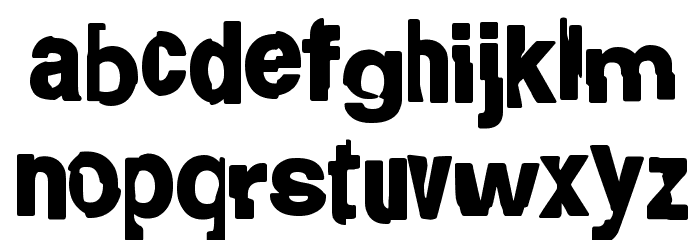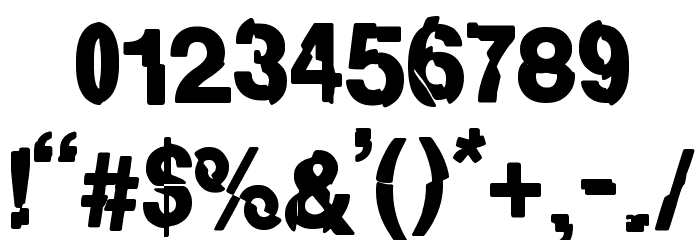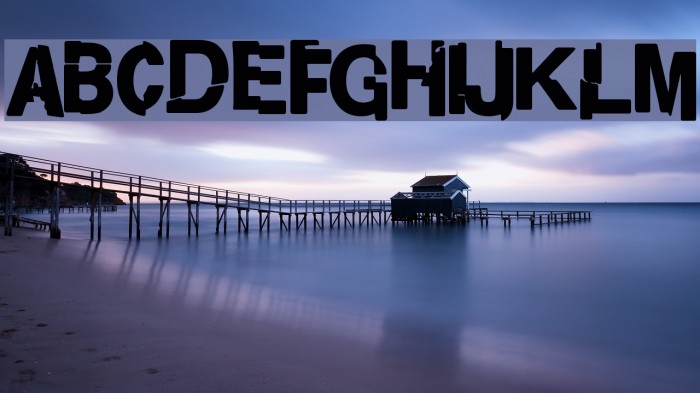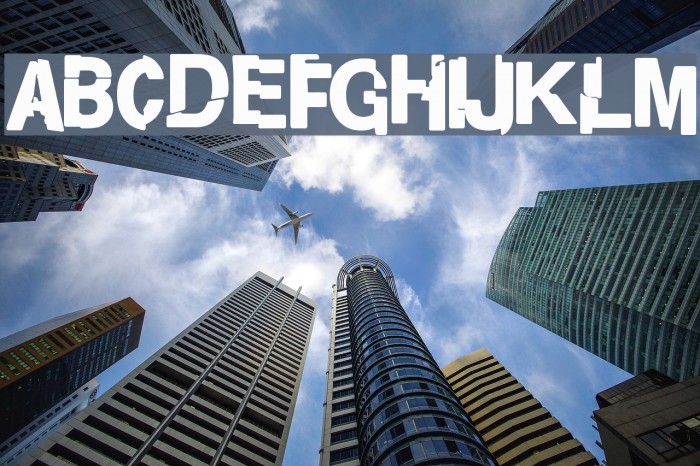
Rota en mil Pedazos Font
This font features a bold and fragmented design, giving it a unique and edgy appearance. The characters appear as if they have been shattered or broken, creating a dynamic and visually striking effect. The uppercase and lowercase letters maintain a consistent style, with jagged edges and irregular shapes that add to the overall chaotic aesthetic. Numbers and special characters follow the same design principles, ensuring uniformity across all glyphs. The font's boldness and distinctive style make it ideal for projects that require a strong visual impact.
A bold, fragmented font with a dynamic and edgy appearance.
- Proposed Projects: Ideal for album covers, posters, branding for edgy or alternative products, and any design needing a strong visual impact.
- Overall Style: Modern, Edgy